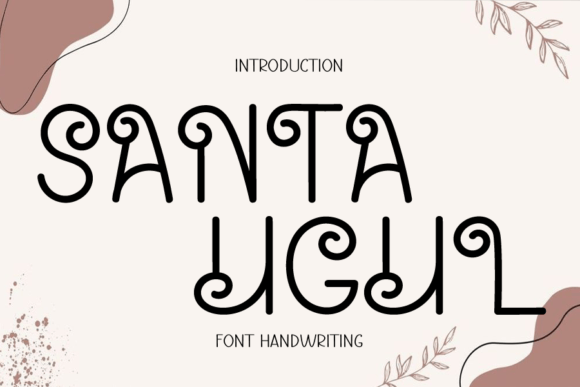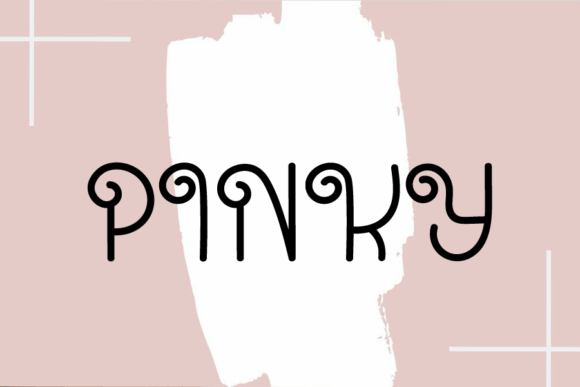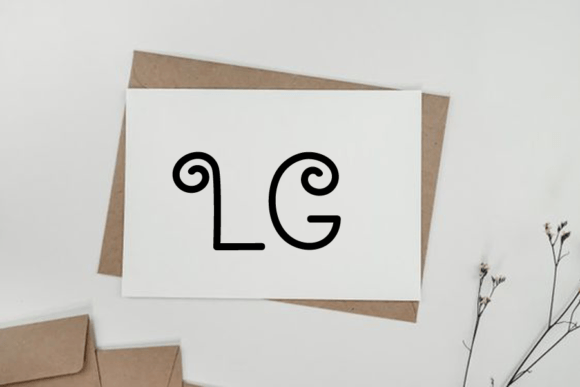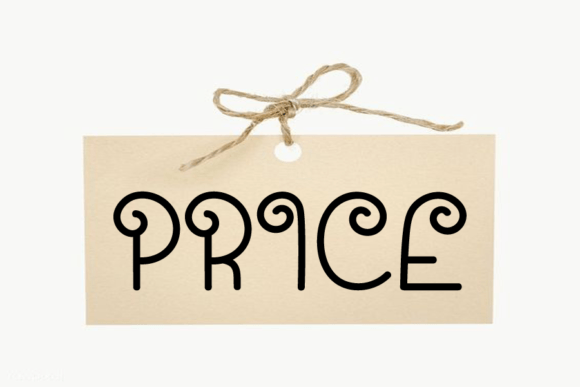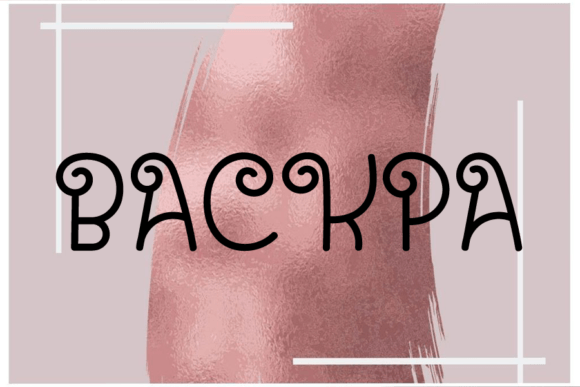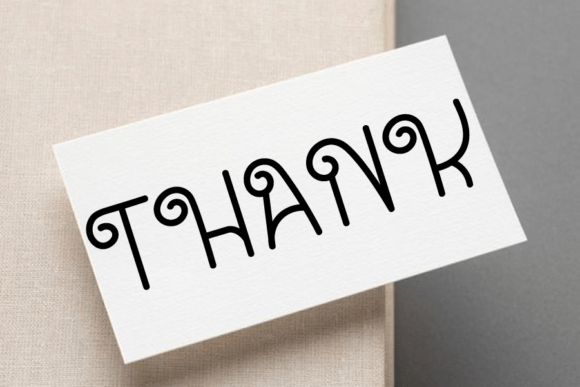
Santa Ugul Font
About Santa Ugul Font
The Santa Ugul Font Download brings you a classic handwritten script that combines simplicity with creativity. Designed with a free and random style, it reflects the natural flow of authentic handwriting while maintaining clarity and elegance. Its adaptable look makes it a great choice for projects that need personality without losing readability.
With its smooth and flowing strokes, Santa Ugul stands out as a script that feels casual yet professional. Designers who want to inject originality into their work will find this font both reliable and inspiring.
Features of Santa Ugul Font
The Santa Ugul Font Download comes with features that make it a versatile option for modern and traditional designs alike:
• Classic handwritten script style with organic shapes
• Complete set of uppercase, lowercase, numerals, and punctuation
• Balanced readability across print and digital media
• Natural randomness that adds authenticity to text
These qualities ensure Santa Ugul fits a wide variety of creative applications while keeping designs fresh and engaging.
Best Uses for Santa Ugul Font
The Santa Ugul Font Download is suitable for an impressive range of projects. Some of the most popular uses include:
• Logotypes & Branding – Perfect for creating memorable and approachable brand identities
• Headlines & Posters – Bold and stylish for impactful statements
• Apparel Industry – Works beautifully on t-shirts, clothing labels, and fashion designs
• Books, Comics & Magazines – Adds warmth and personality to covers and layouts
• Media & Entertainment – Great for music covers, film titles, and game graphics
• Digital Content – Ideal for websites, YouTube channels, Instagram posts, and more
Because of its versatility, Santa Ugul is equally effective for personal projects and professional branding.
Why Choose Santa Ugul Font?
Designers often prefer the Santa Ugul Font Download because it blends casual style with creative flexibility. Its random handwritten strokes give each project a unique touch, while the overall balance ensures easy readability.
It also pairs well with both serif and sans-serif fonts, giving designers freedom to create attractive combinations. Whether for print or digital media, Santa Ugul enhances layouts with a warm, human feel.
The Santa Ugul Font Download is more than just a handwritten script—it’s a versatile design tool that adapts to countless creative needs. From corporate branding to casual personal projects, it provides an authentic, timeless touch that elevates any design.